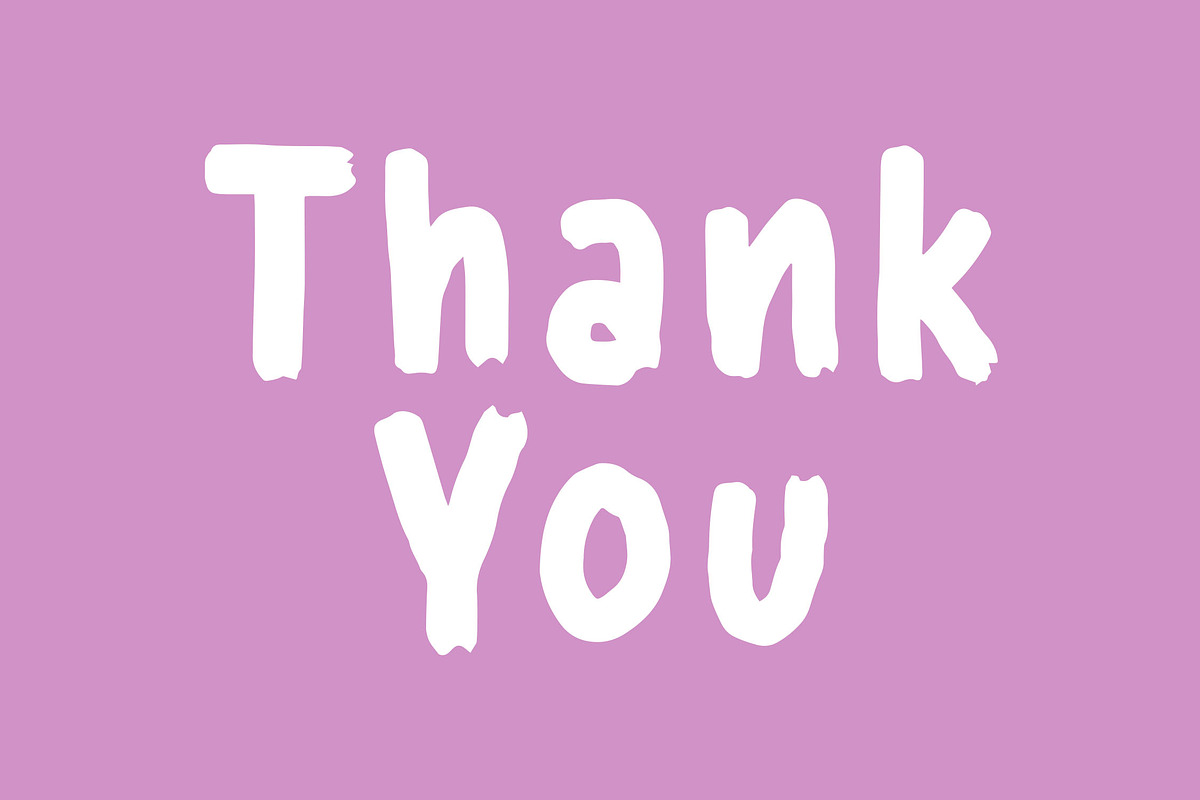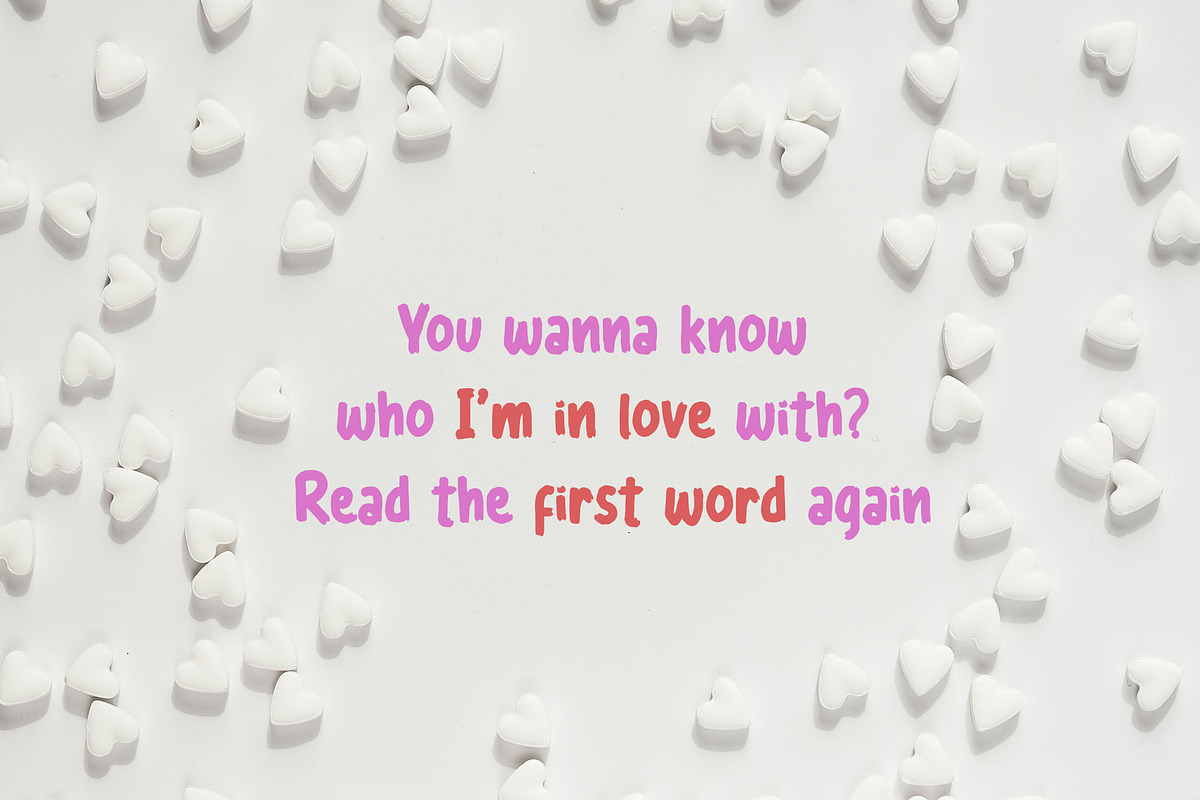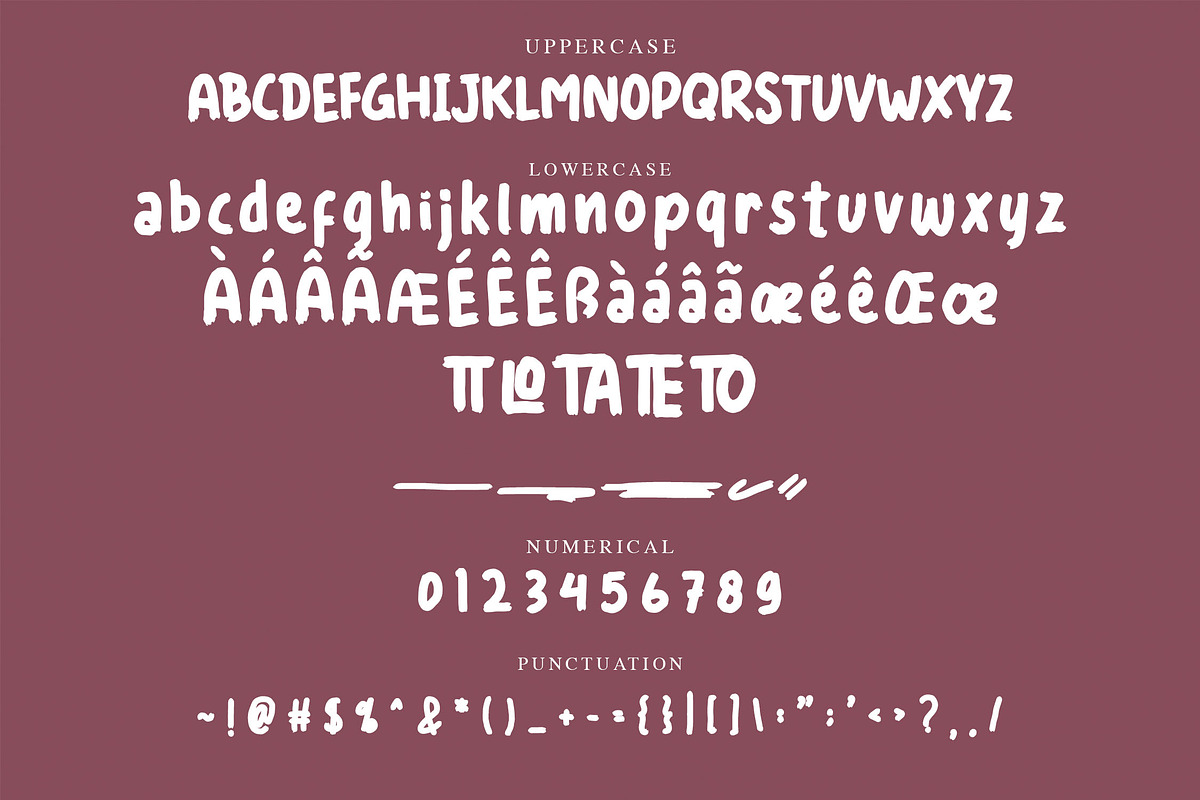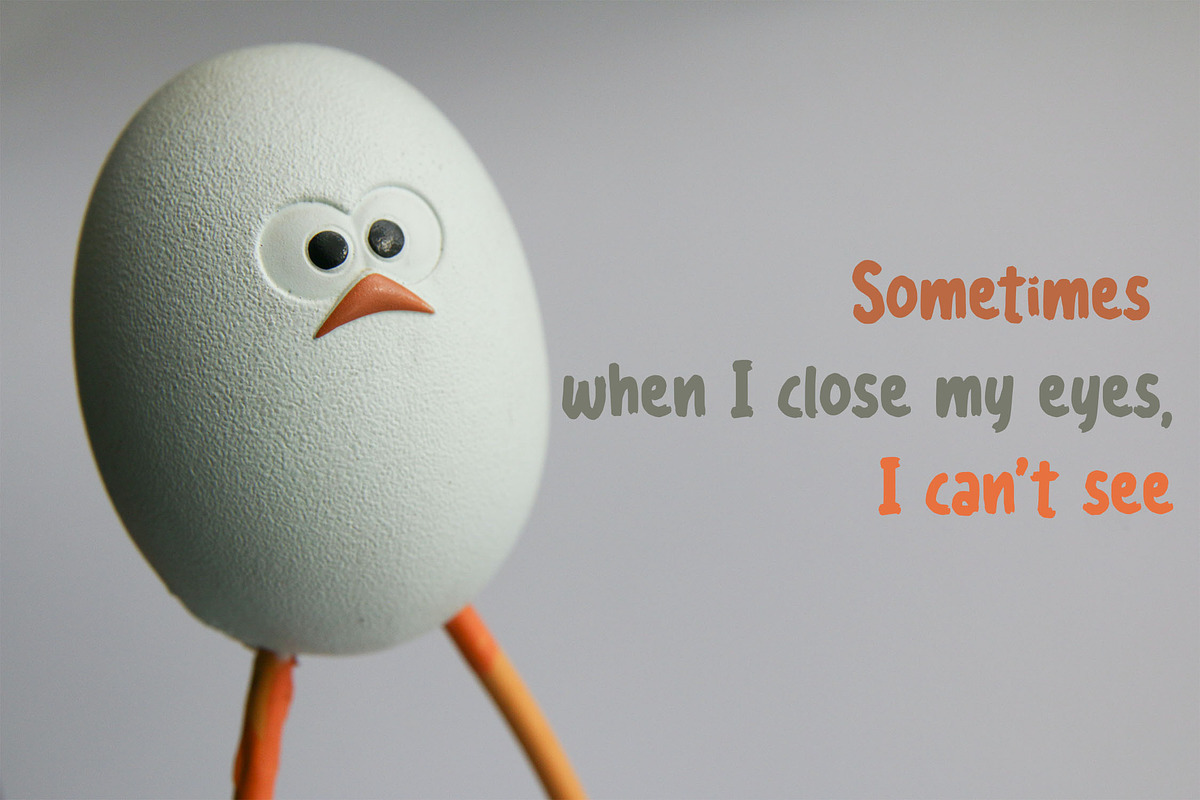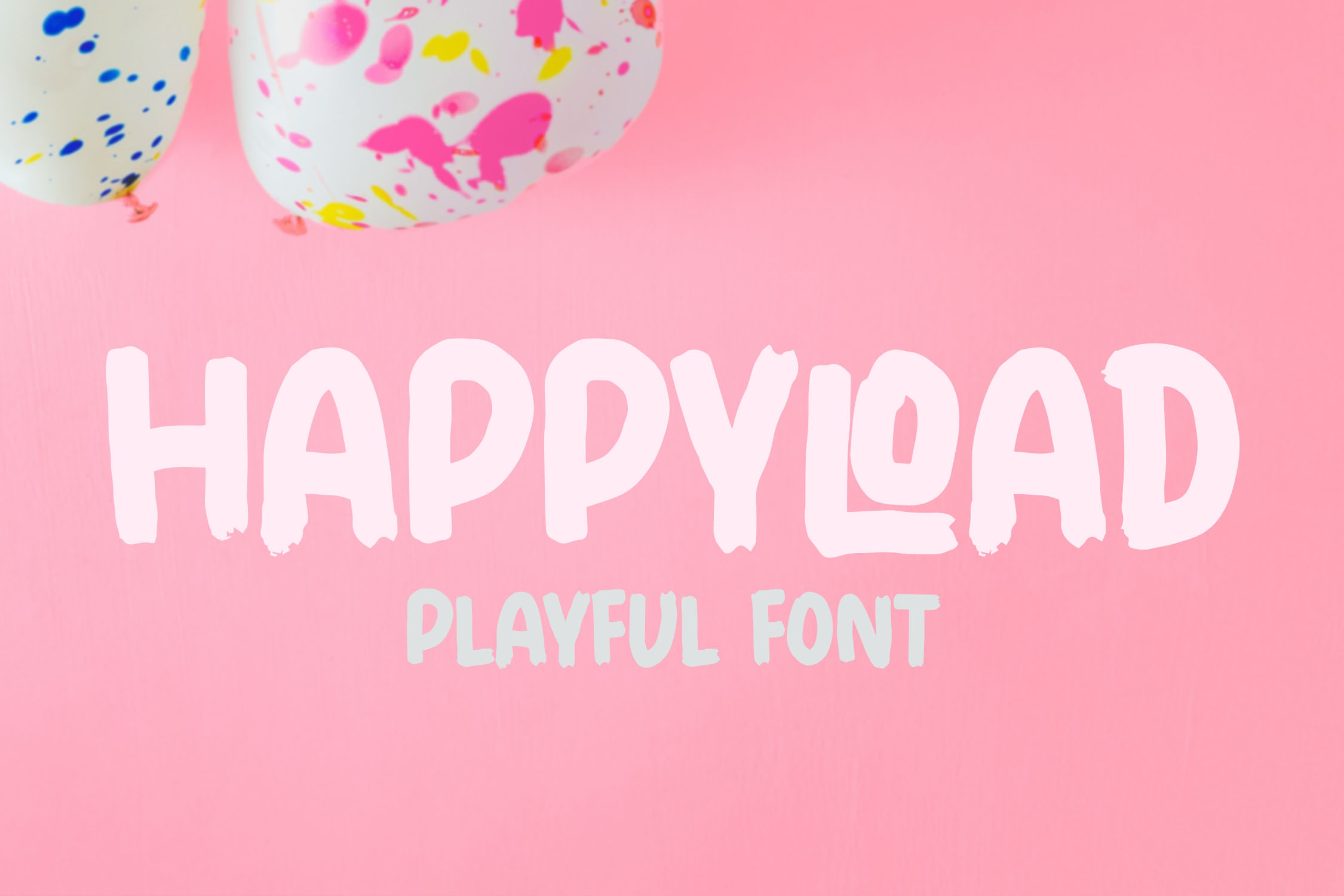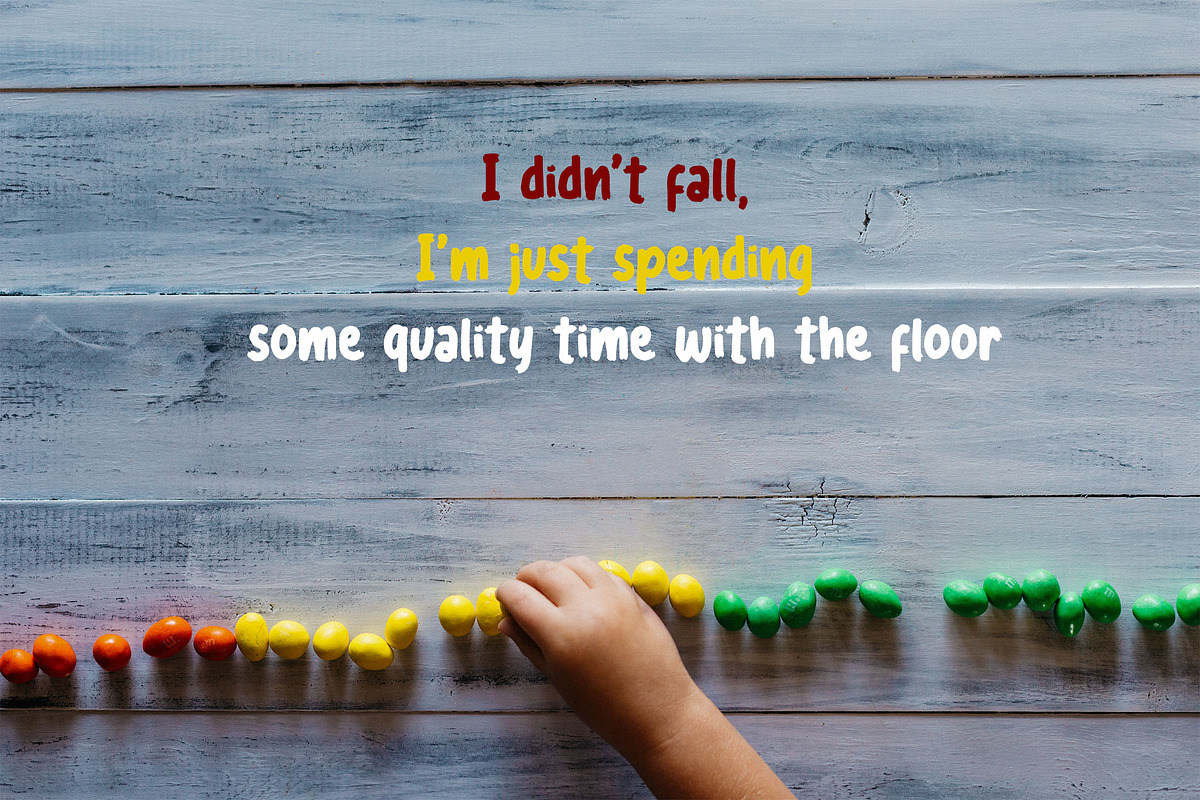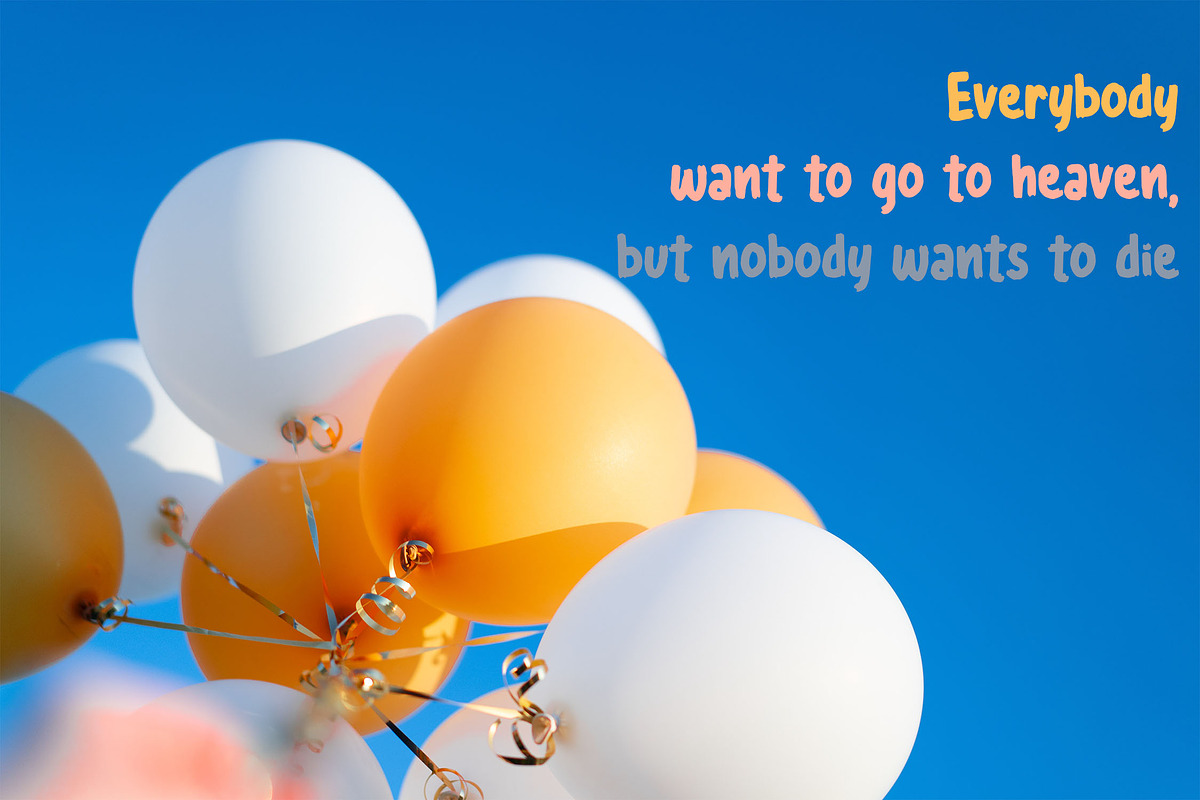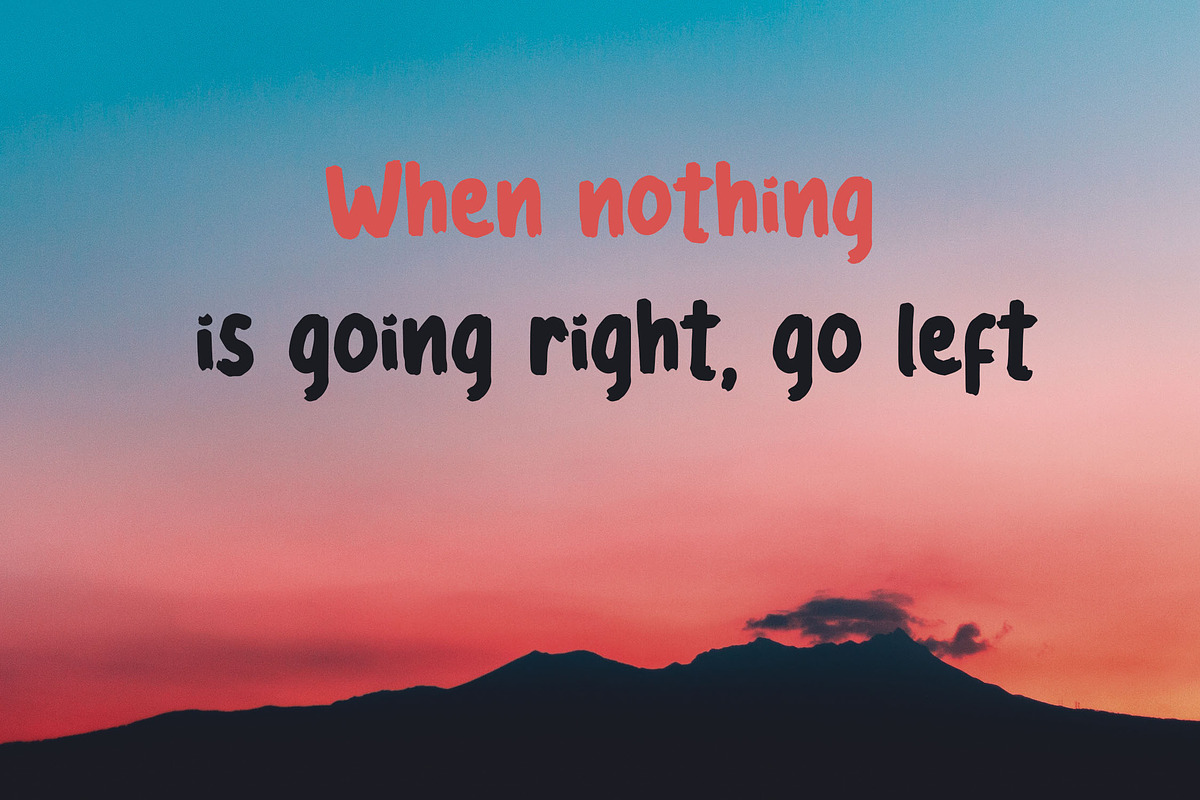
HAPPYLOAD - Playful Font
HAPPYLOAD is a playful display font with a handwritten style. Is a font style that is made with scratched handwritten shapes font characters are very beautiful. Can be applied to support the graphic appearance of the product to be more attractive and unique. This font is very nice for making previews and covers designs, cute logos, shirts, and other graphic needs.
- Stylistic Alternate